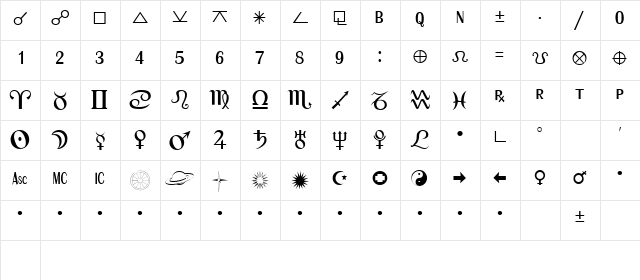
ASHANTA Regular Font Preview
ASHANTA Regular
ASHANTA Regular Font Details
Design Context for ASHANTA Typeface
ASHANTA is a composed and adaptable typeface that performs quietly and consistently across a wide range of design contexts.